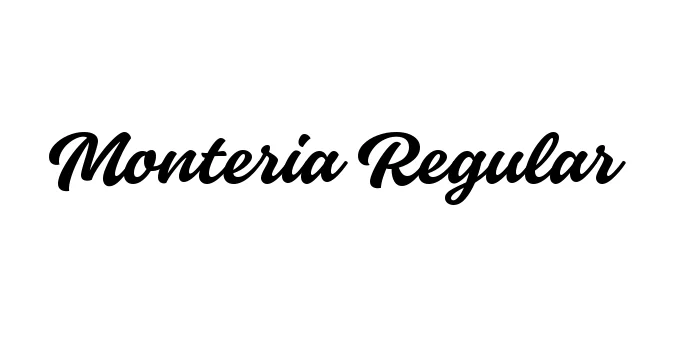
Monteria Regular
Designed by Sronstudio
Monteria Regular is a sophisticated and elegant script typeface designed by Sronstudio. It was crafted to bridge the gap between traditional calligraphy and modern digital typography, offering a rhythmic flow that mimics authentic handwriting. The font features a comprehensive set of ligatures and stylistic alternates that allow designers to create fluid, natural-looking text layouts.
Since its release, the font has gained popularity in the luxury branding and wedding industries. Its clean yet expressive strokes make it highly legible even in smaller sizes, while its dramatic flourishes provide a high-end feel for large-scale displays. Whether used for digital media or high-quality print production, Monteria Regular remains a versatile choice for projects requiring a touch of personal elegance.
Monteria Regular Best Uses
Ideal for invitations, RSVP cards, and place settings due to its romantic and elegant flow.
Perfect for luxury logos, fashion labels, and boutique business identities seeking a personal touch.
Great for creating eye-catching quotes, Instagram story graphics, and lifestyle blog headers.
Adds a sophisticated feel to magazine titles, feature article headers, and book covers.